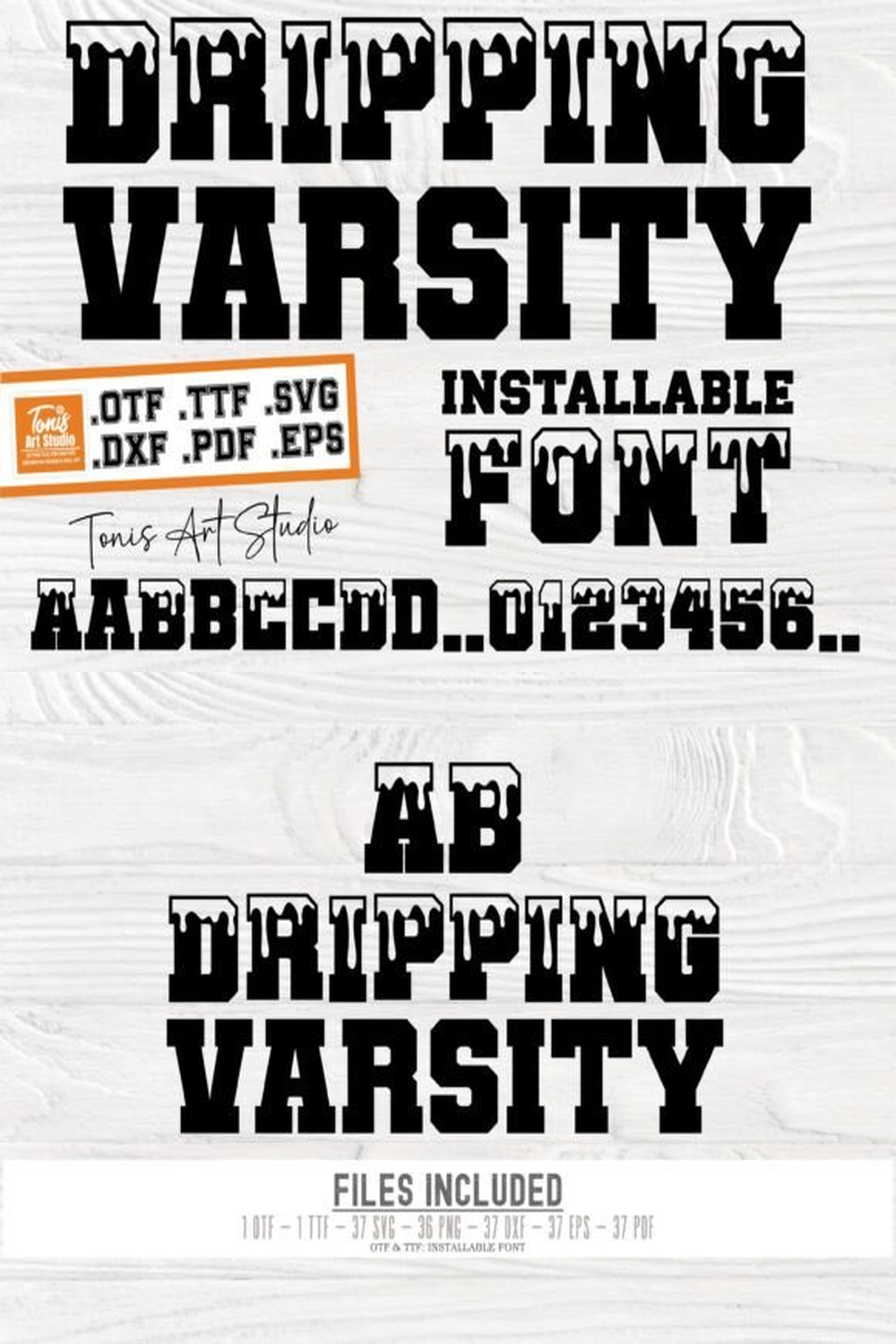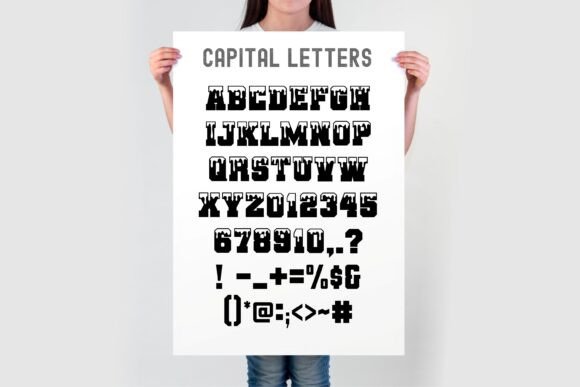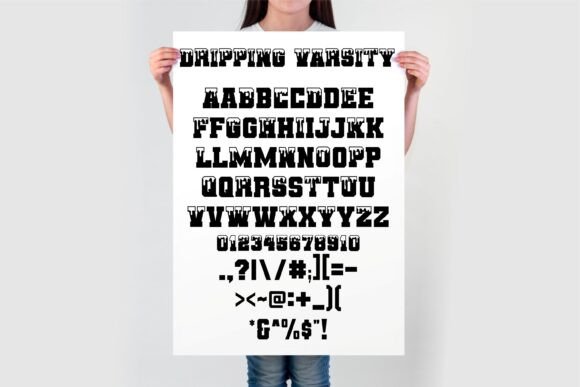
Ab Dripping Varsity Font
About the Ab Dripping Varsity Font
The Ab Dripping Varsity Font is here to transform your projects with its distinctive character and style. Get that sports vibe with our Varsity Font svg! Perfect for athletic-themed designs, these font feature bold College Font and Dripping Letters styles that will make your projects stand out. This pack includes SVG, TTF, DXF, PNG, EPS, and PDF files, giving you endless possibilities for creating cool University Font artwork. Whether you’re designing team shirts, event posters, or fan merchandise, these fonts will add a fun and edgy touch to your projects. Upgrade your font game today with our Varsity Font!